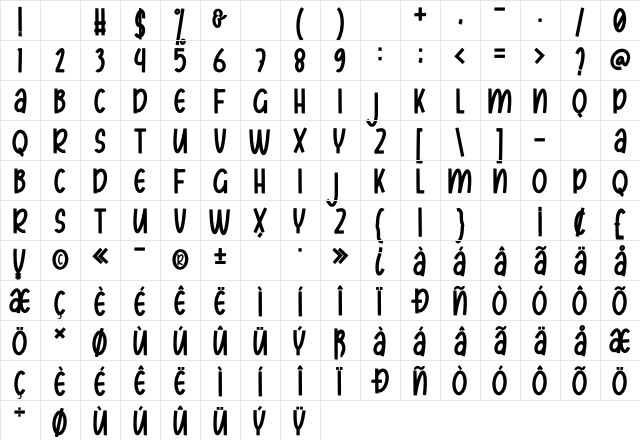
Labreak Regular
Designer: Skiiller studio - M irfan mahmudin
Design Context for Labreak
Labreak is a composed and adaptable typeface that performs quietly and consistently across a wide range of design contexts.